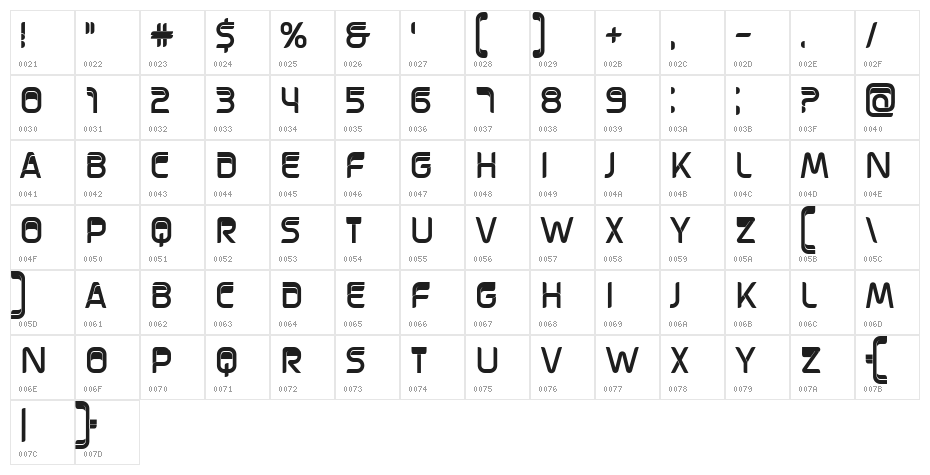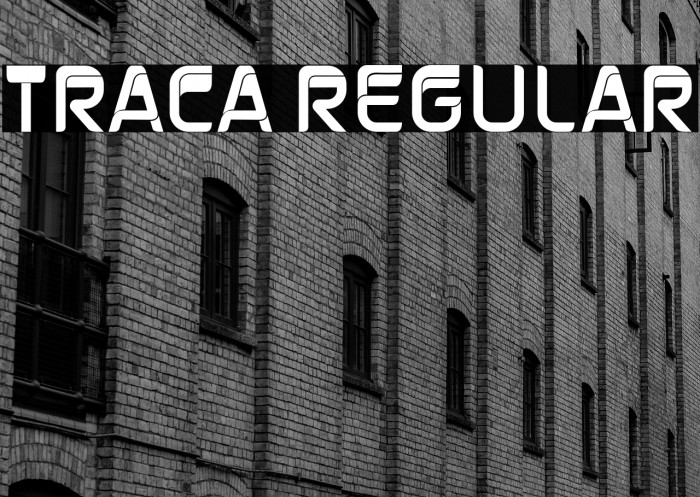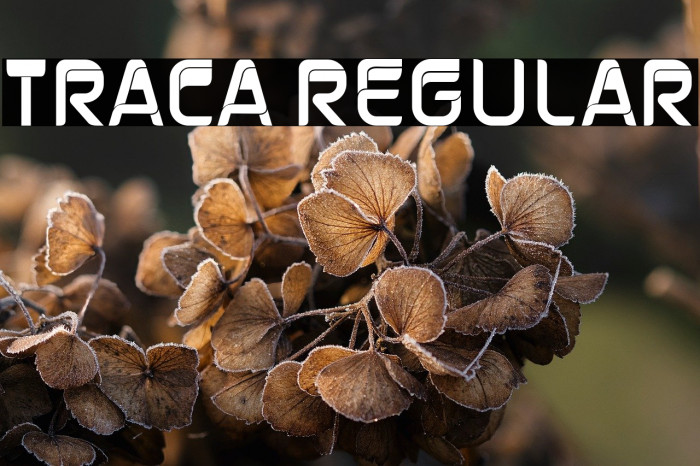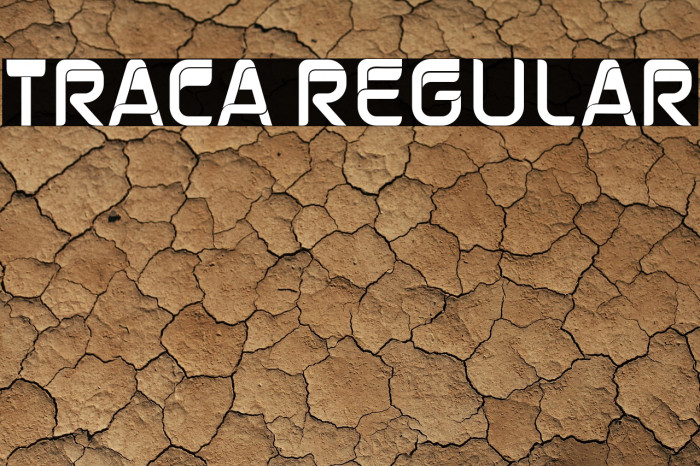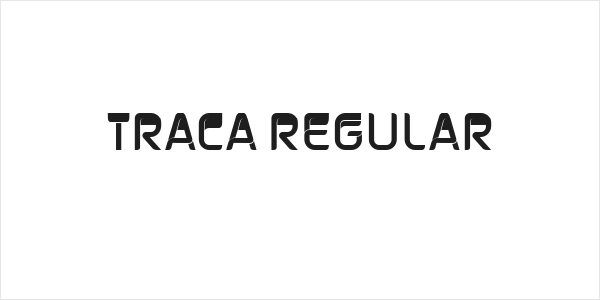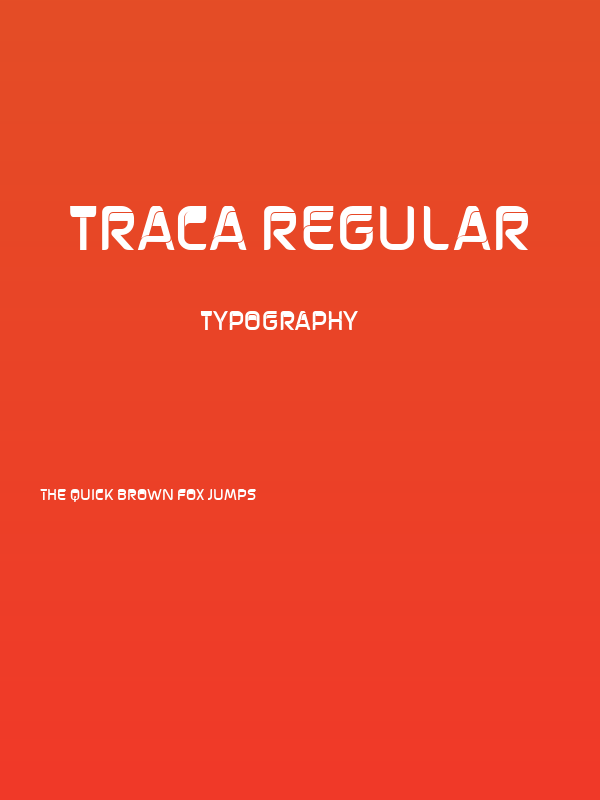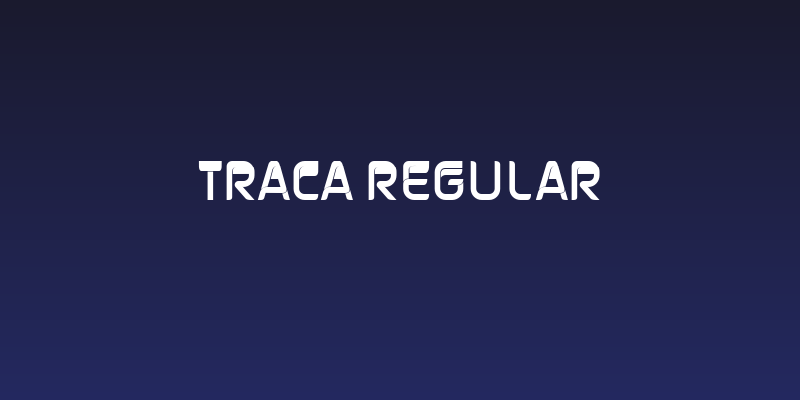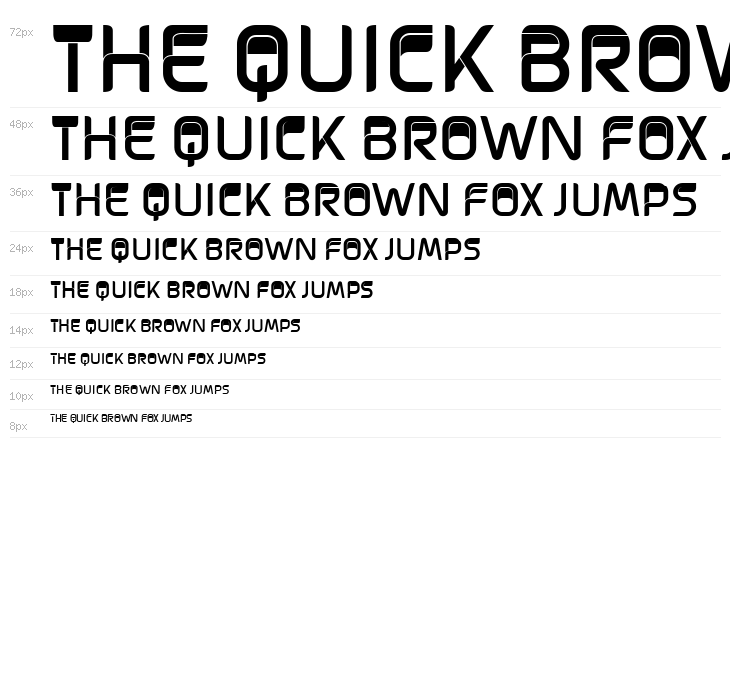
Traca Regular Font
Traca Regular Description
This font presents a modern and futuristic aesthetic with its geometric and angular design. The characters are constructed with a combination of straight lines and curves, creating a unique and eye-catching appearance. The uppercase letters are bold and assertive, while the lowercase letters maintain a consistent style, offering a cohesive look across all text. The numerals are distinct and easily readable, with a design that complements the overall style of the font. Special characters are creatively integrated, maintaining the font's modern theme. The font's design is suitable for projects that require a contemporary and innovative touch.